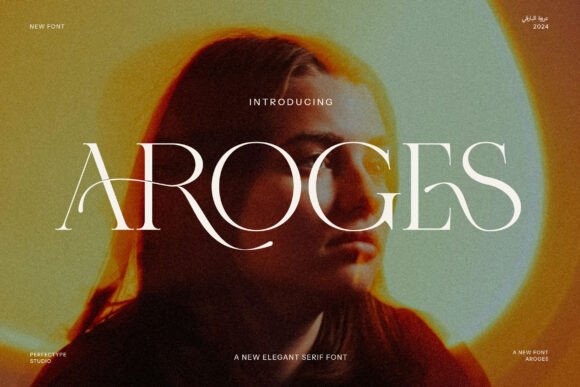
The Elusive Font: A Designer’s Quest for Luxury and Refinement
I still remember the project like it was yesterday. A high-end fashion brand needed a sophisticated logotype that exuded luxury and elegance. As I scoured the internet for the perfect font, I found myself stuck in a sea of similar-looking typefaces. That was until I stumbled upon Aroges Font. With its unique blend of traditional charm and modern sophistication, it was love at first sight. In this article, I’ll share my experience with Aroges, its features, and how to make the most of this stunning typeface.
Aroges: A Masterclass in Elegance and Versatility
Aroges is the epitome of modern sophistication and timeless charm. With its carefully designed serifs and graceful curves, Aroges brings a sense of luxury and refinement to any project. This typeface blends traditional elegance with a contemporary edge, making it ideal for a wide range of creative applications. Its unique ligatures and alternate characters further enhance its versatility, allowing for dynamic typographic compositions that capture attention and inspire admiration.
- ✨ Elegant serifs and refined curves that scream luxury
- ✅ Highly versatile with a range of OpenType features
- 💡 Unique ligatures and alternate characters for added creativity
- 📈 Scalable and legible across various font sizes
Small Quirks and Limitations:
While Aroges is an exceptional typeface, it’s not without its quirks. For instance, some users might find the font’s elegance a bit too refined for certain projects, such as a children’s book or a casual blog. Additionally, ⚠️ Aroges may not be the best choice for body text due to its serif nature and potential readability issues at small font sizes.
The Designer Inspiration Behind Aroges
While the true story behind Aroges’ creation remains a mystery, it’s easy to imagine a designer driven by a passion for luxury and refinement. Perhaps they drew inspiration from the ornate serifs of classic typography, combined with a modern edge to create a truly unique typeface. Whatever the inspiration, Aroges is a testament to the power of typography to elevate and transform any design project.
| Font Name | Aroges Font |
| Author | Perfectype |
Q: What makes Aroges suitable for luxury branding?
A: Aroges’ elegant serifs, refined curves, and sophisticated feel make it an ideal choice for luxury branding, exuding a sense of high-end quality and refinement.
Q: Can I use Aroges for body text?
A: While Aroges is a beautiful typeface, it may not be the best choice for body text due to its serif nature and potential readability issues at small font sizes.
Q: Does Aroges support OpenType features?
A: Yes, Aroges supports a range of OpenType features, including stylistic alternates, ligatures, and more, allowing for dynamic typographic compositions.
Q: Is Aroges suitable for digital and print applications?
A: Aroges is a versatile typeface that can be used across various design platforms, including digital and print applications, from branding and advertising to editorial design and packaging.